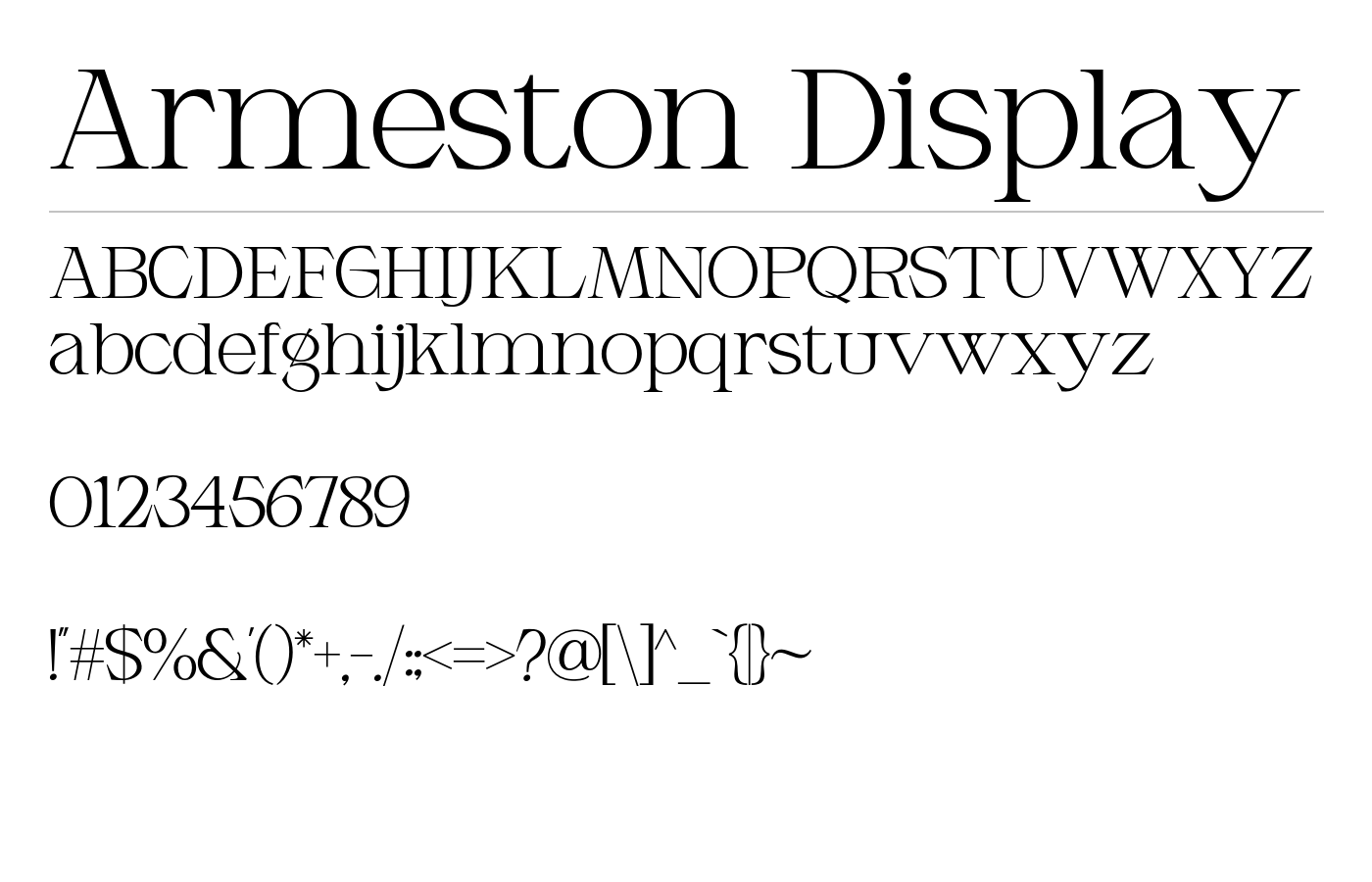
Armeston Display is an elegant serif font with a refined, high-contrast stroke that exudes sophistication and luxury. Its slender letterforms and delicate serifs make it ideal for upscale branding, fashion editorials, and stylish headlines where a graceful and modern yet classic feel is desired. This font works beautifully in contexts that call for a touch of elegance and clarity, such as logos, packaging, and boutique websites.
Armeston Display Font
About Armeston Display Font
| Font family | Armeston Display Font |